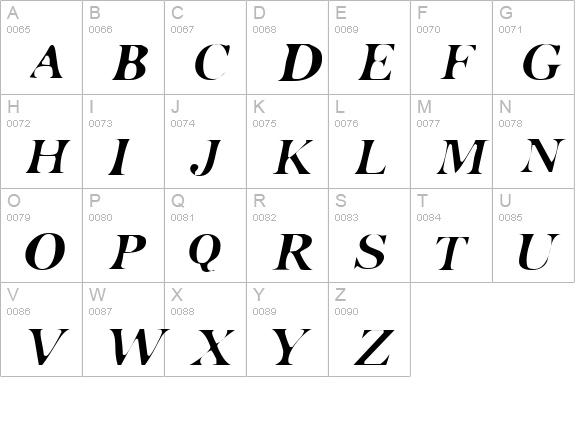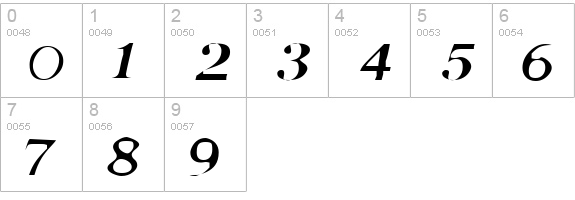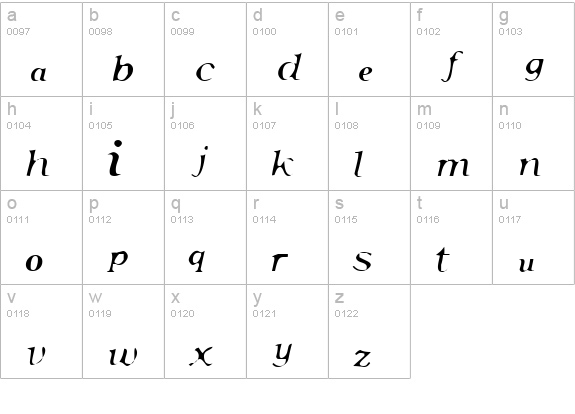
Pensmooth Font Details
Introducing Pensmooth font, a captivating and versatile typeface that effortlessly combines elegance with a touch of playfulness. With its fluid strokes and smooth curves, Pensmooth is the perfect choice for any project seeking to make a lasting impression. This font offers a wide range of characters, from uppercase and lowercase letters to numbers, symbols, and punctuation marks. Its unique design allows for seamless integration into various design styles, making it suitable for anything from branding and packaging to invitations and social media graphics. One of the most remarkable aspects of Pensmooth font is that it is entirely free. Yes, you read that correctly - this remarkable font is freely available to download at FontsMarket.com. Whether you're a professional designer or simply someone looking to add a touch of elegance to their personal projects, Pensmooth font is there to fulfill your needs without any cost. Downloading Pensmooth font from FontsMarket.com is a breeze. Simply visit the website, locate the font, and with just a few clicks, it will be yours to explore and utilize to your heart's content. The freedom to enhance your designs with such a remarkable font without breaking the bank is truly a gift. Unleash your creativity and bring your projects to life with Pensmooth font. Its versatility and charm will effortlessly elevate your designs, captivating your audience and leaving a lasting impression. Download this free font today and let your imagination soar.